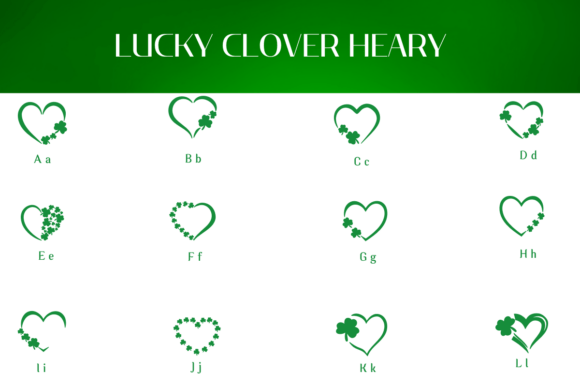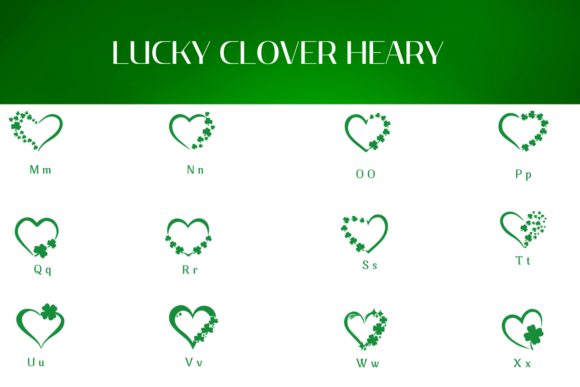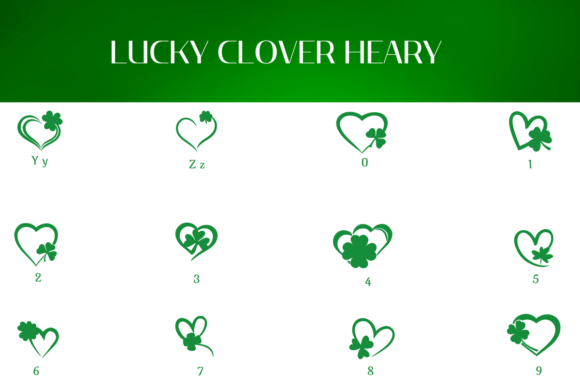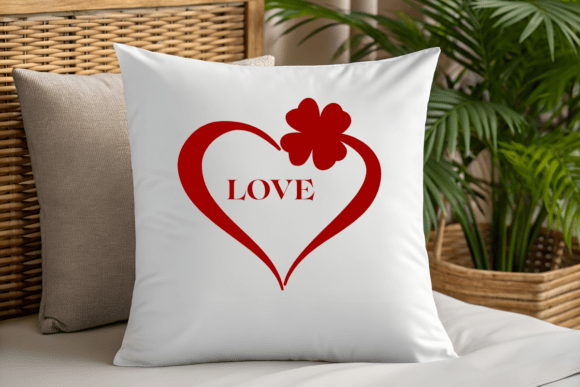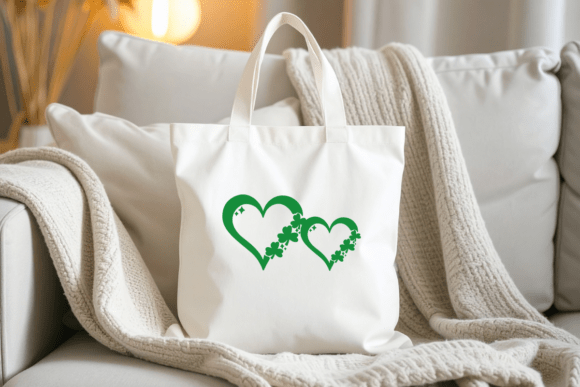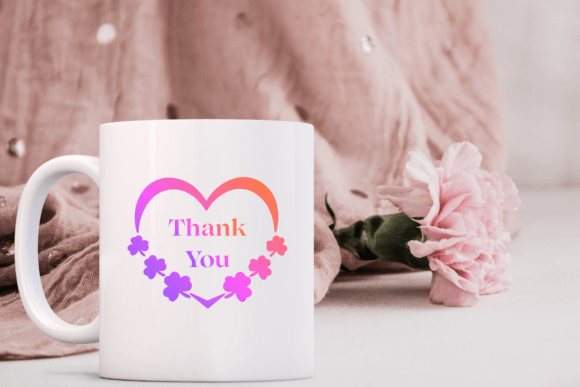
Introduction to Lucky Clover Hearts Font
Lucky Clover Hearts is a dingbats fonts.
You can use it for taking notes, writing a diary, or making greeting cards However, you can still use it for other designs, such as banners, content, mugs, cards, shirts, stationery, social media posts, and more.
Key Features of Lucky Clover Hearts Font